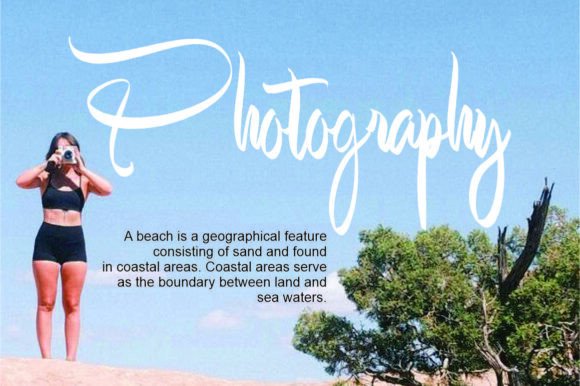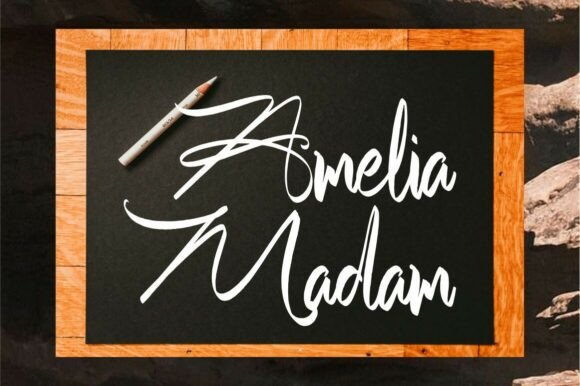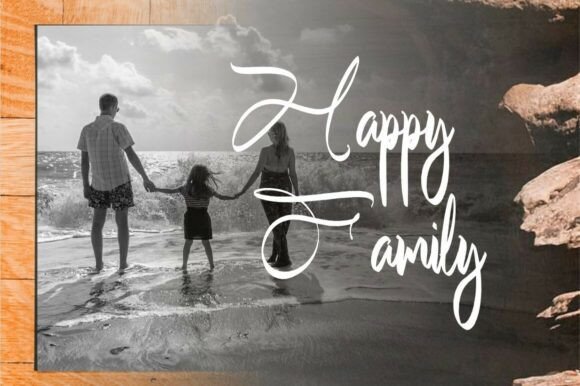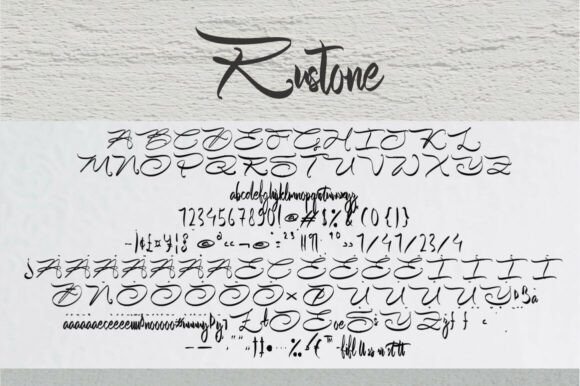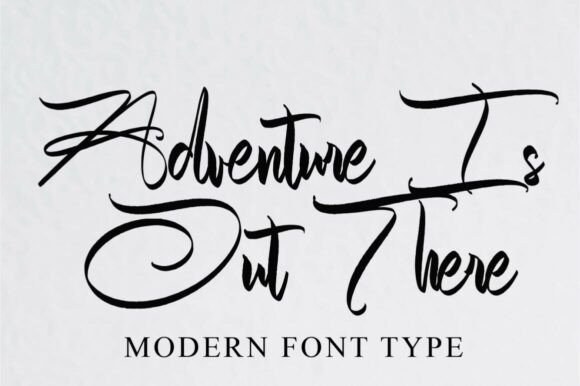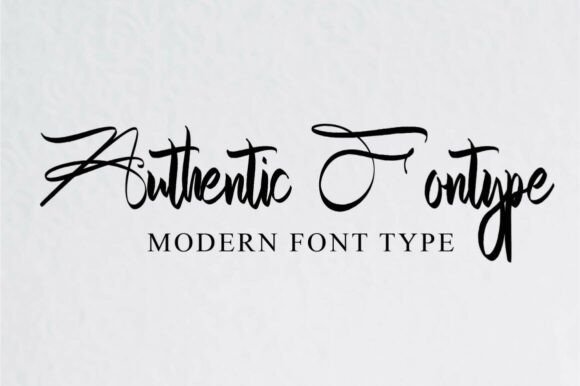
Introduction to Rustone Font
Rustone is an expressive handwritten font.
With modern pen strokes, fun characters with little ligatures, alternate lowercase, and swashes To give you more creative work.